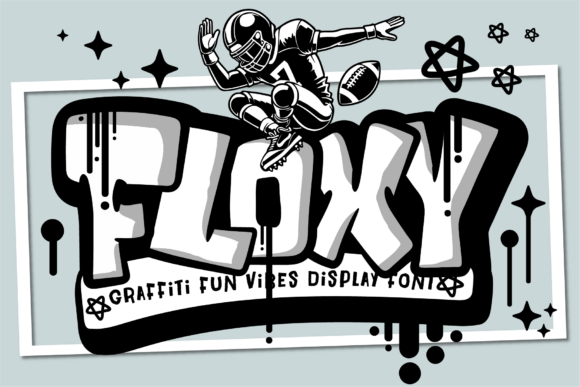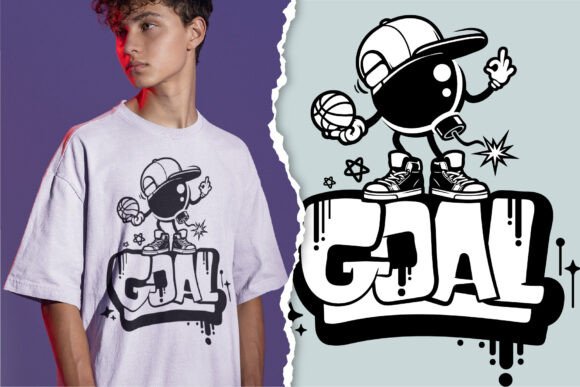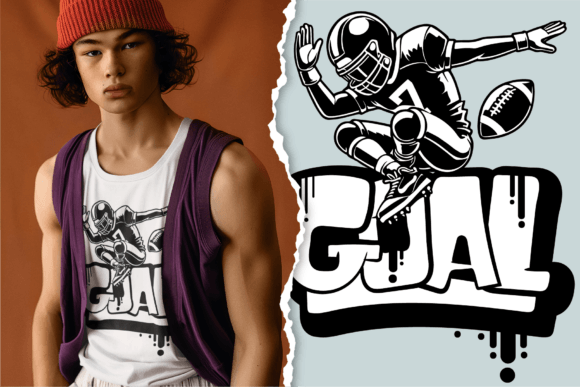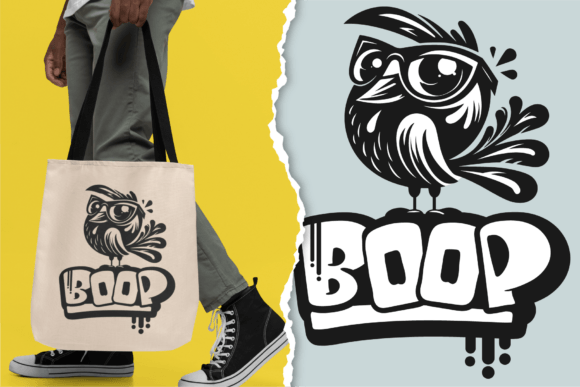
Floxy Font: A Bold Graffiti Display Font for Cool Urban Designs
About the Floxy Font
The Floxy Font is here to transform your projects with its distinctive character and style. Floxy is a playful graffiti font bursting with fun and urban vibes. Perfect for young audiences, it brings cool street art energy to any design. Whether you’re working on a kid’s project, cartoon-inspired art, or trendy urban graphics, Floxy adds a creative and dynamic edge. With its bold, expressive lines and energetic style, Floxy is ideal for posters, T-shirts, branding, and anything needing a fresh, cool touch. Bring the streets to life with this graffiti-inspired typeface!
Floxy’s bold, expressive forms are best suited for headlines, short slogans, and logos where its playful energy can make a strong visual impact. It excels in branding for streetwear apparel, skate shops, or youth-oriented products. However, its highly stylized nature makes it unsuitable for body text or long-form content; readability suffers at smaller sizes.
Consider pairing Floxy with a clean sans-serif like Open Sans for body copy to create a balanced contrast between the headline’s playful energy and the readability of the supporting text. Alternatively, a geometric sans-serif like Futura would offer a more modern and sophisticated counterpoint. For a bolder statement, a simple serif like Garamond might surprisingly complement Floxy’s rebellious spirit.
Floxy projects a youthful, rebellious, and undeniably fun personality. Its bold strokes and irregular letterforms convey a sense of raw energy and spontaneity, making it perfect for brands that want to communicate a sense of street-smart coolness and creativity.